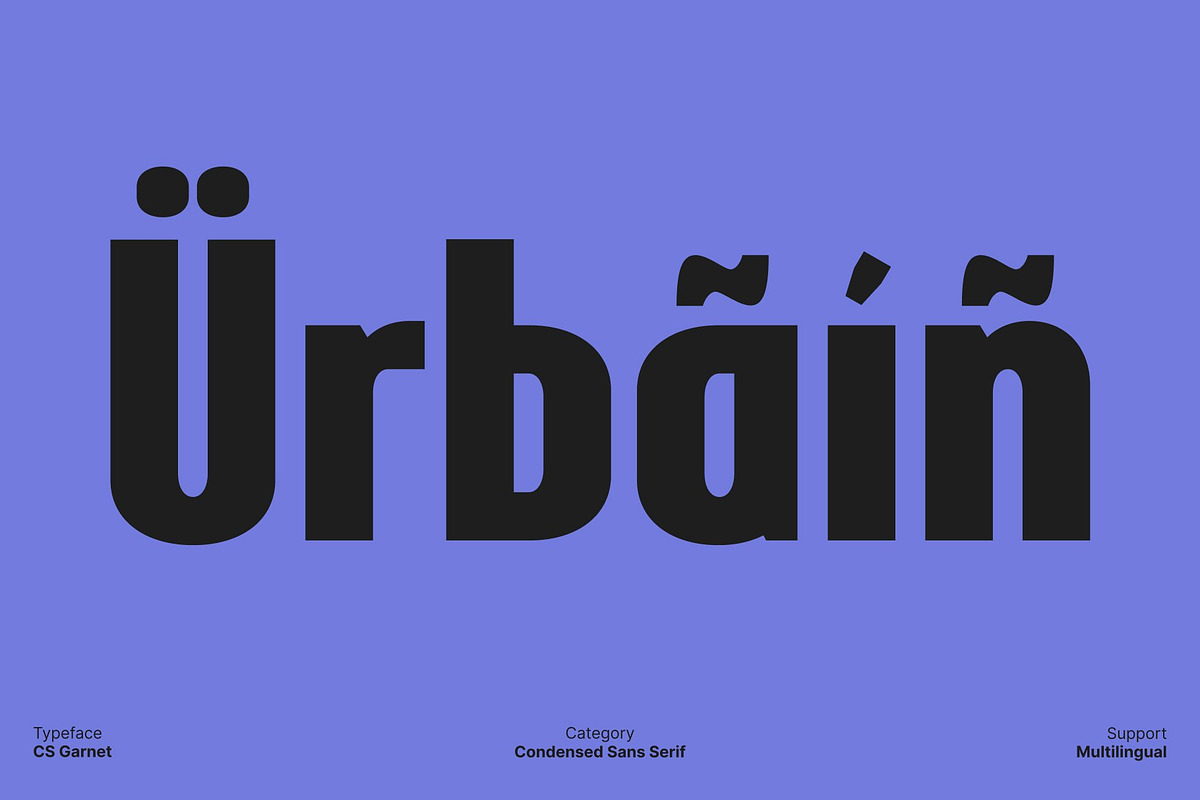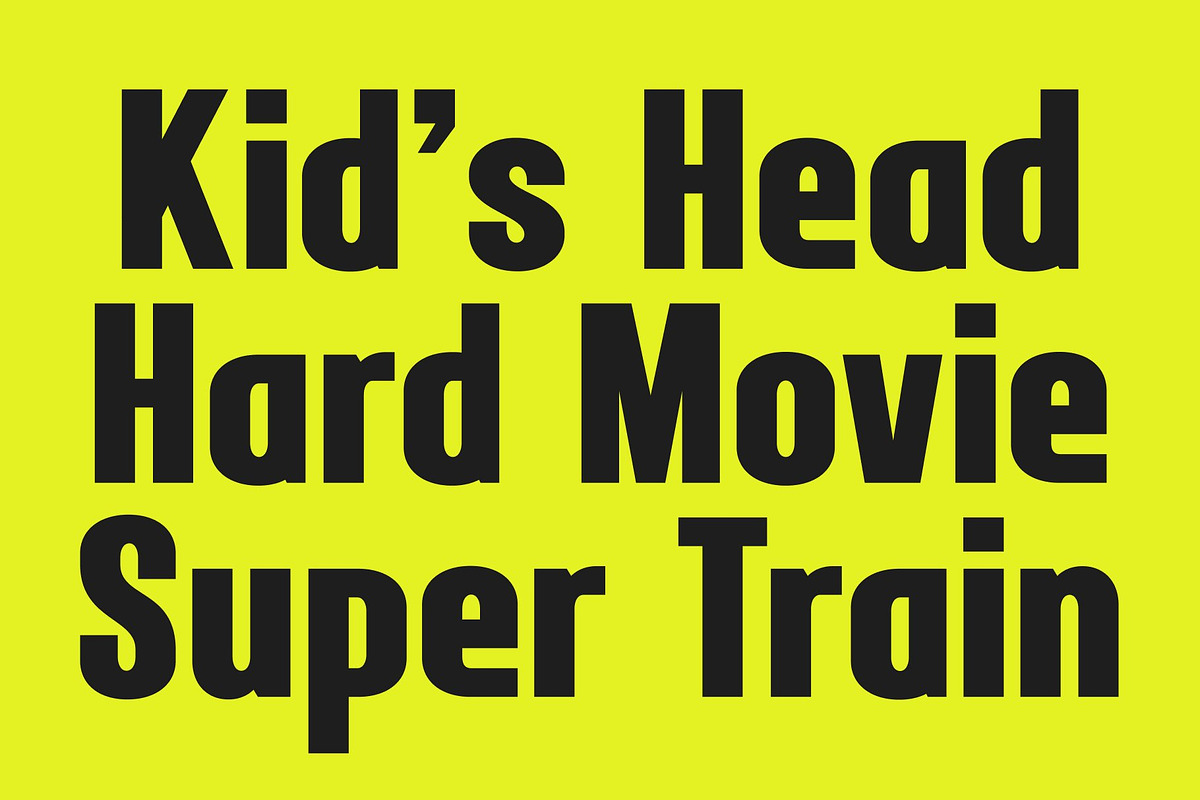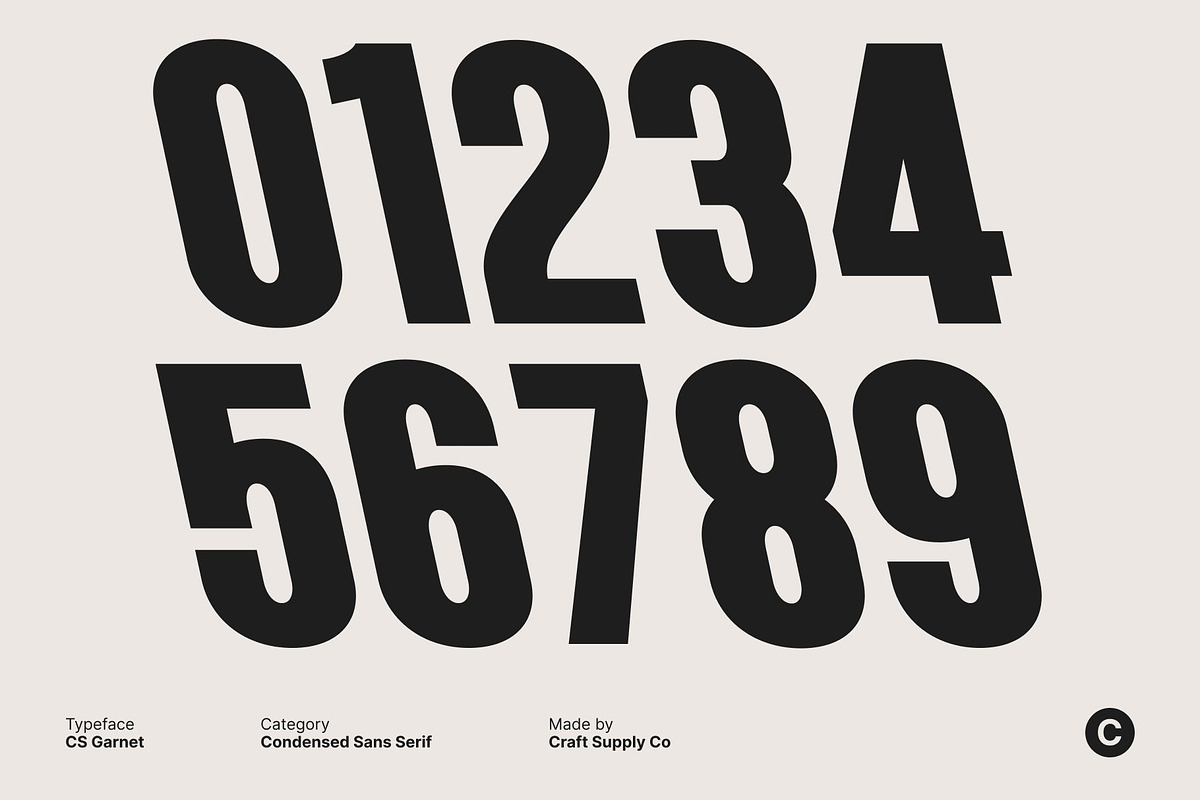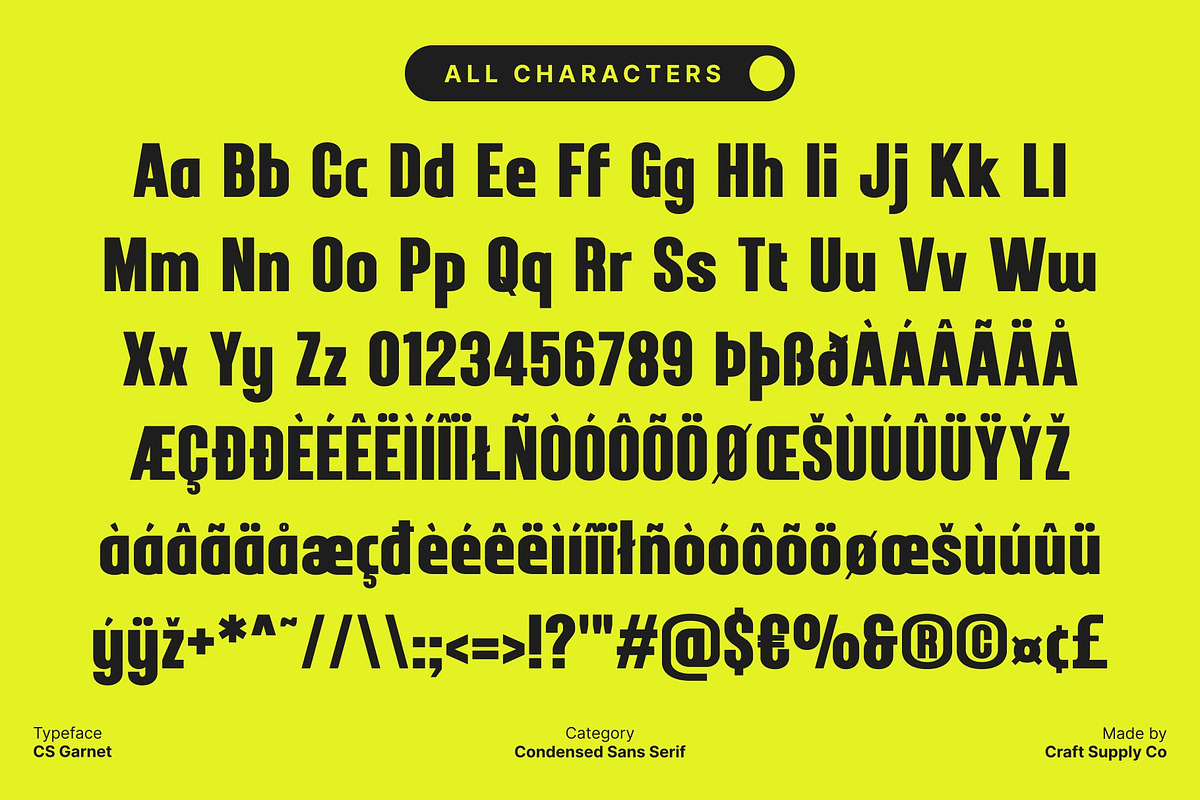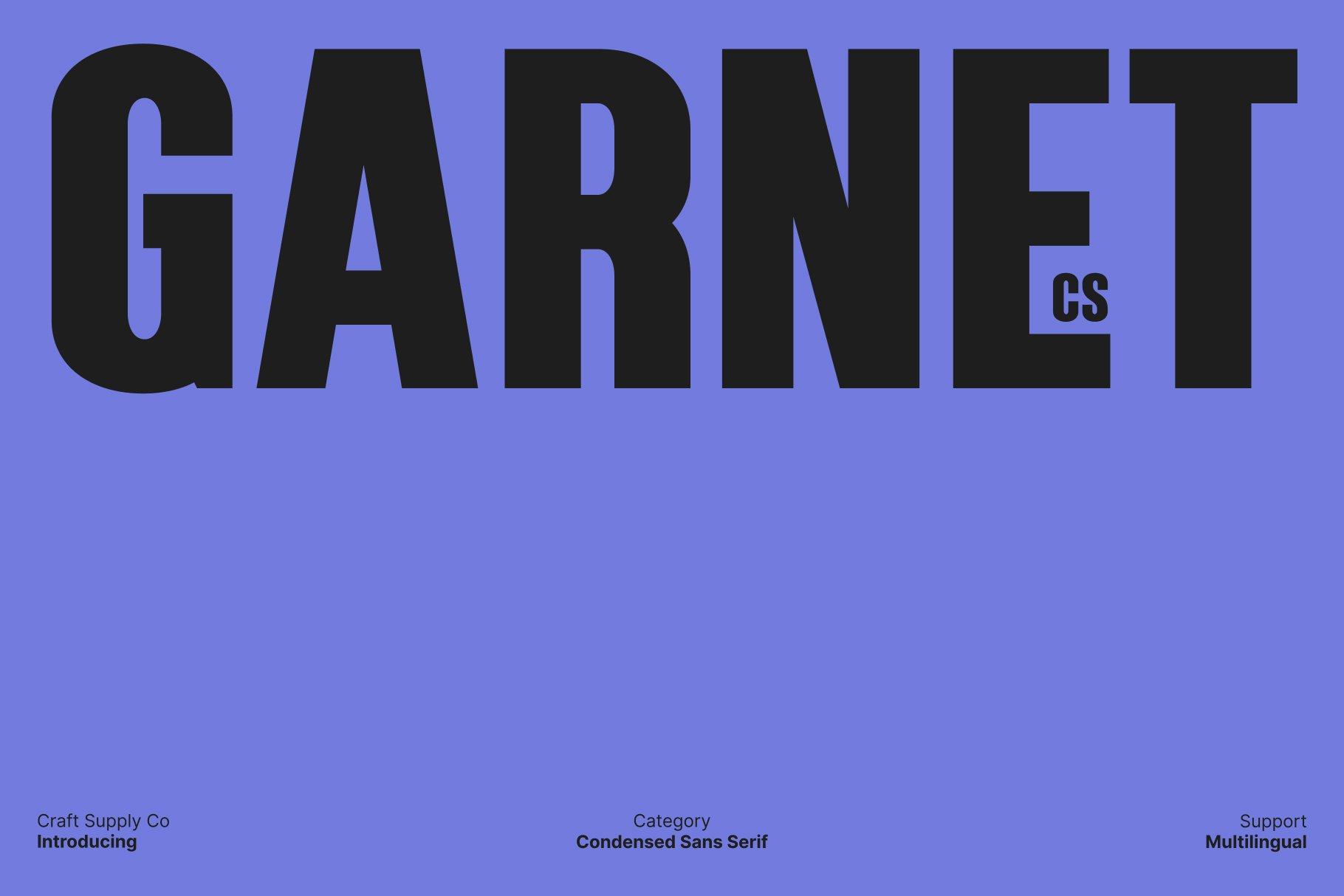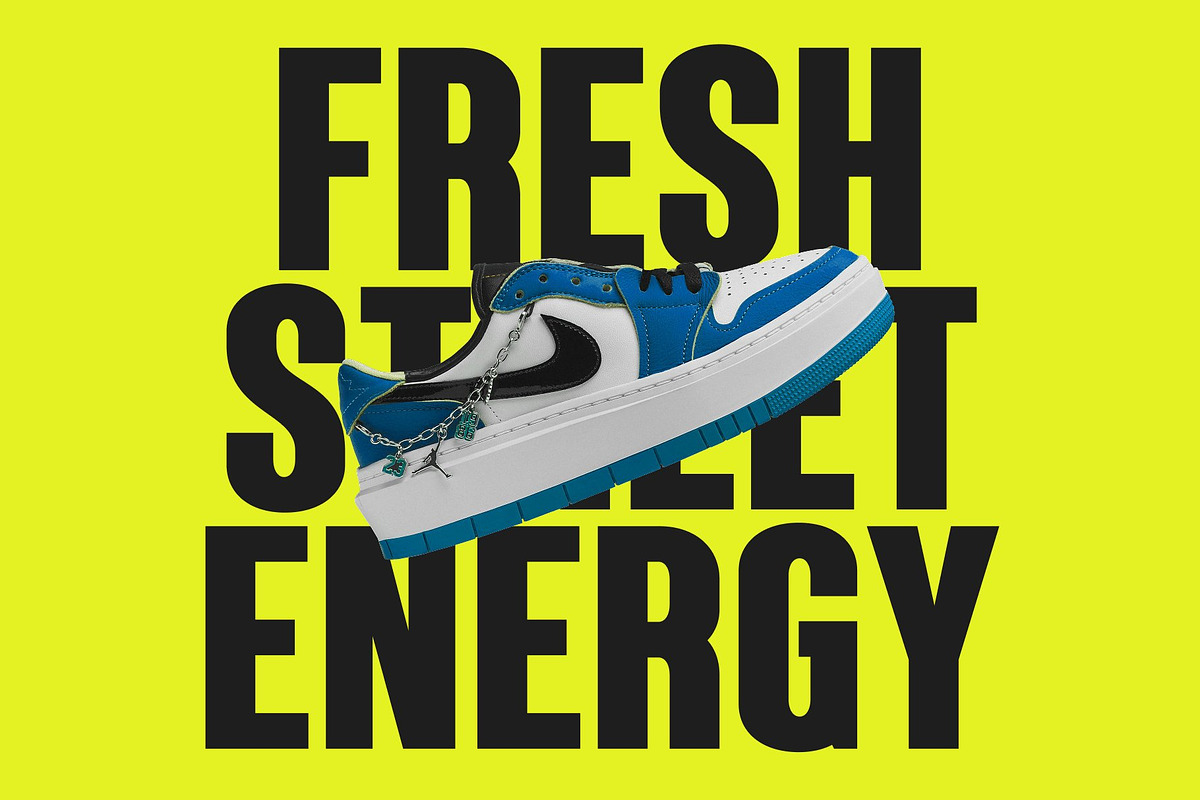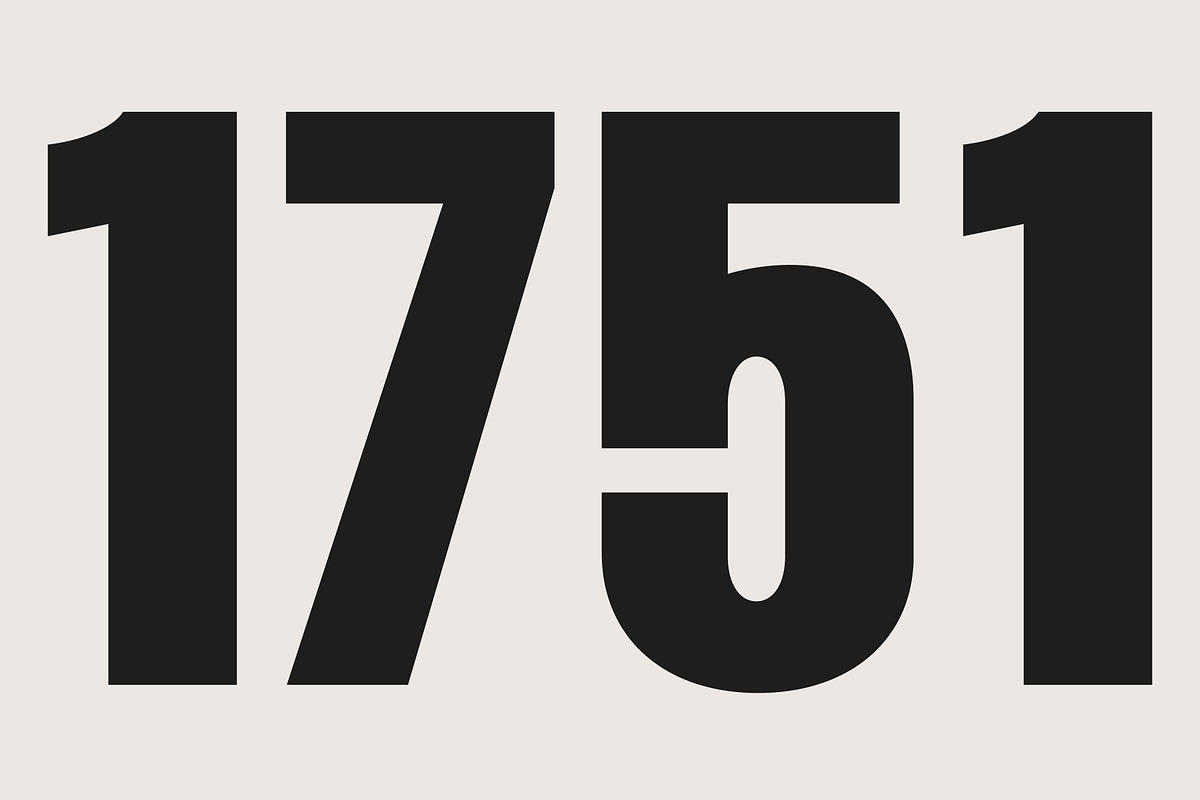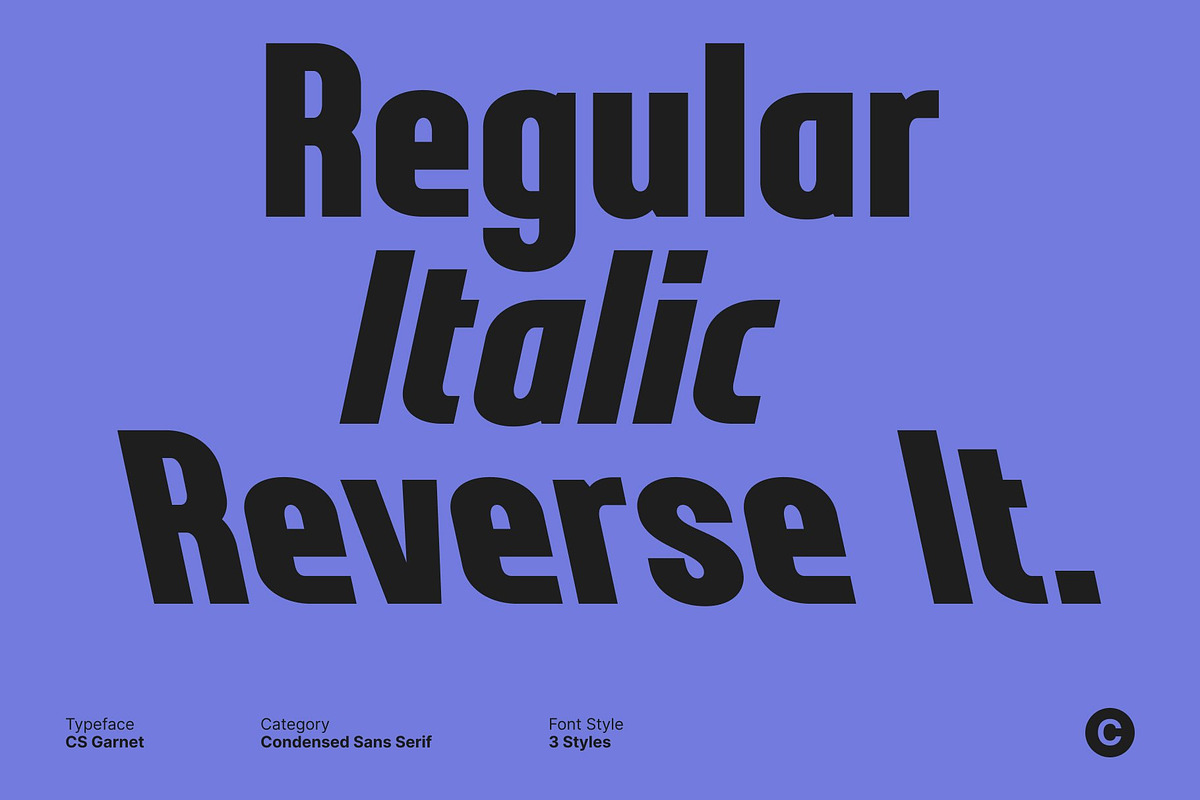
CS Garnet – Condensed Font
CS Garnet – Condensed Sans Serif with Maximum Impact: Compact Display Font for Bold Typography
Strong and Modern Design This is a condensed sans serif font built for powerful visual presence. Its compact proportions allow it to make a bold statement even in tight spaces, ensuring your designs command attention without sacrificing style. Ideal for headlines, posters, and branding.
Efficient and Readable Letterforms Despite its condensed structure, this font maintains excellent readability. Each character is carefully crafted to balance boldness with clarity, making it perfect for projects where space is limited but impact cannot be compromised.
Contemporary Aesthetic with Versatility The font’s modern geometric shapes give it a clean and professional look, adaptable to a wide range of creative applications. Whether used in editorial layouts, promotional materials, or digital designs, this font communicates confidence and style.
Ideal for Bold and Distinctive Projects This font is the go to typeface for designers seeking a compact yet striking solution. Its combination of powerful presence, legibility, and modern aesthetics makes it perfect for branding, poster art, and any project that needs to stand out with clarity and impact.
- CS Garnet Regular
- CS Garnet Italic
- CS Garnet Reverse Italic